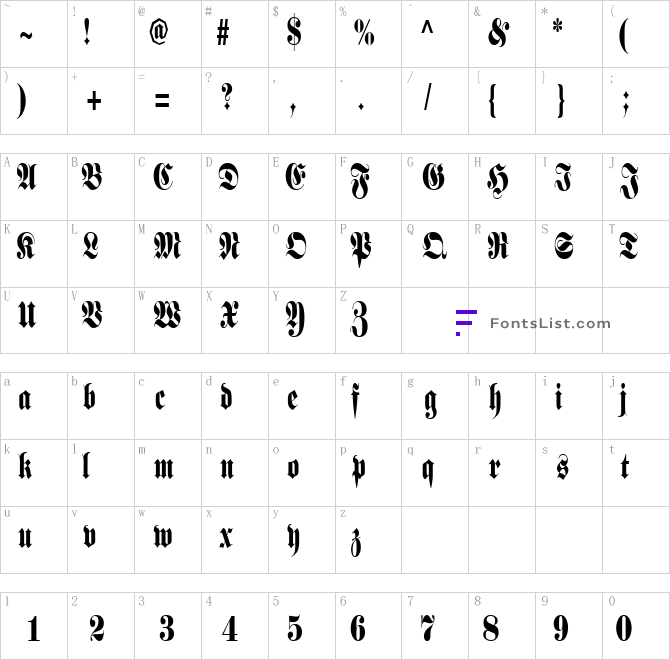
- Font Name:BarronCondensed
BarronCondensed.ttf is a very beautiful artistic font, BarronCondensed.ttf is widely used in the design and printing of various books and pictures,BarronCondensed.ttf has a strong visual impact,BarronCondensed.ttf is a commonly used font in newspapers, magazines and books, and is used in posters, e-commerce Poster design, store design, logo design, font design and other fields.BarronCondensed.